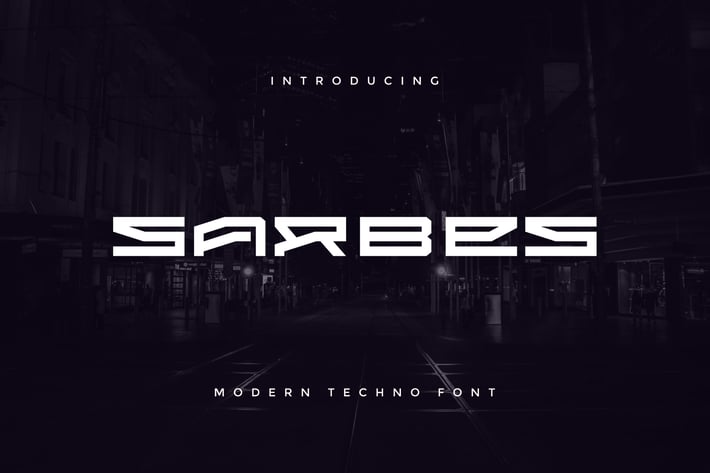
Sarbes - Modern Techno Font
Introducing our new product Sarbes - Modern Font
Sarbes is a bold, modern display font with playful flair, ideal for attention-grabbing headlines, logos, and diverse design projects. Versatile and readable in both digital and print, Sarbes adds a dynamic touch to your message.